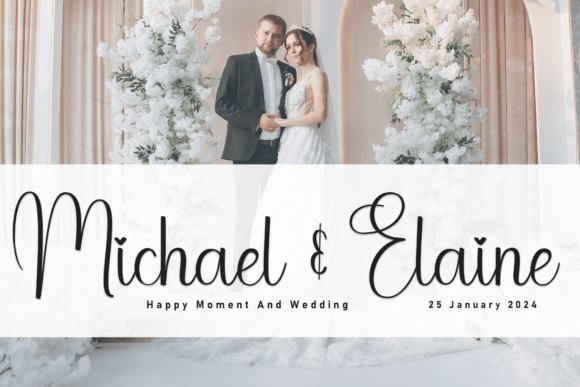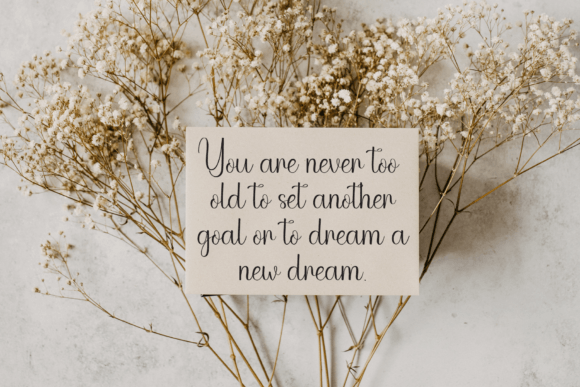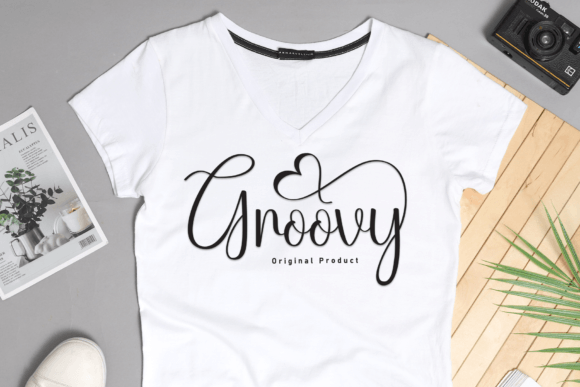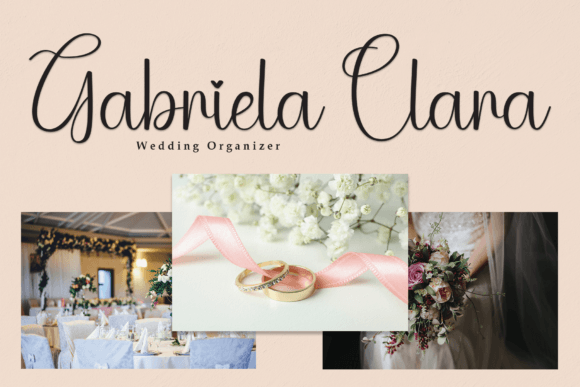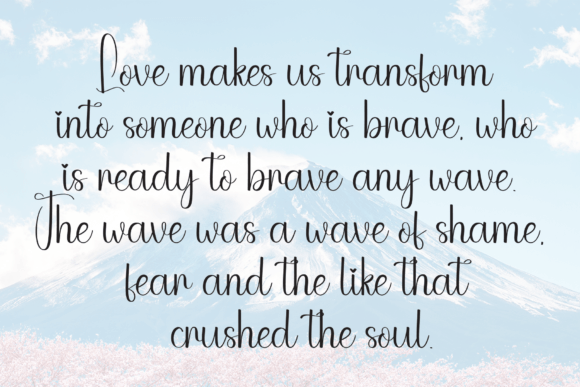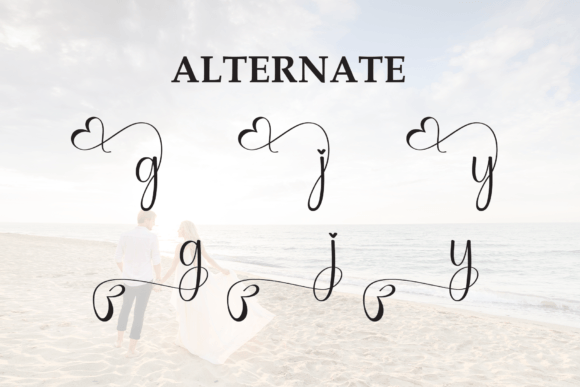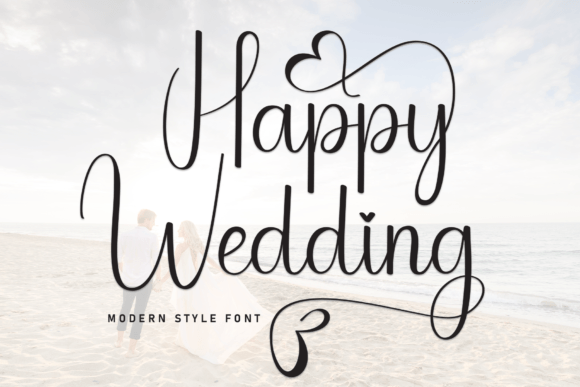
Introducing Happy Wedding Font: The Perfect Choice for Joyful Designs
Are you searching for a font that embodies the joy and happiness of a wedding? Look no further than Happy Wedding Font, a sweet and friendly handwritten display font that’s perfect for adding a fun touch to your designs. In this article, we’ll explore the features and benefits of Happy Wedding Font, and why it’s an ideal choice for designers and crafters looking to create beautiful wedding invitations, cards, and more.
What is Happy Wedding Font?
Happy Wedding Font is a delightful handwritten display font that’s designed to bring a smile to your face. Its sweet and friendly appearance makes it perfect for writing wedding invitations, cards, or any other design that might need a fun touch. Whether you’re a designer, crafter, or DIY enthusiast, Happy Wedding Font is sure to become your go-to choice for creating joyful and celebratory designs.
Key Features of Happy Wedding Font
• Cute and Fun: Happy Wedding Font is a playful and whimsical font that’s sure to add a touch of fun to your designs.
• Handwritten Display Font: With its handwritten appearance, Happy Wedding Font gives your designs a personal and intimate feel.
• Ideal for Wedding Designs: As its name suggests, Happy Wedding Font is specifically designed for wedding-related designs, including invitations, cards, and more.
• Easy to Read: Despite its playful appearance, Happy Wedding Font is easy to read, making it perfect for use in a variety of designs.
Benefits of Using Happy Wedding Font
So why choose Happy Wedding Font for your designs? Here are just a few benefits of using this delightful font:
• Adds a Personal Touch: With its handwritten appearance, Happy Wedding Font adds a personal touch to your designs that’s sure to make them stand out.
• Sets the Tone for the Celebration: Happy Wedding Font’s playful and joyful appearance sets the tone for a celebratory and happy occasion.
• Versatile: While Happy Wedding Font is specifically designed for wedding-related designs, it’s also versatile enough to be used in a variety of other contexts, such as birthday parties, baby showers, and more.
How to Use Happy Wedding Font
Using Happy Wedding Font in your designs is easy. Here are a few tips to get you started:
• Pair it with Other Fonts: Happy Wedding Font pairs well with a variety of other fonts, including serif and sans-serif fonts.
• Use it for Headings and Titles: Happy Wedding Font is perfect for use in headings and titles, where its playful appearance can really shine.
• Experiment with Different Colors: Happy Wedding Font looks great in a variety of colors, so don’t be afraid to experiment and find the perfect hue for your design.
• Play with Different Sizes: Happy Wedding Font can be used in a range of sizes, from small and delicate to large and bold.
• Combine it with Other Elements: Happy Wedding Font pairs well with a variety of other design elements, including images, graphics, and more.
In conclusion, Happy Wedding Font is a sweet and friendly handwritten display font that’s perfect for adding a fun touch to your designs. With its cute and playful appearance, Happy Wedding Font is ideal for writing wedding invitations, cards, or any other design that might need a joyful and celebratory feel. Whether you’re a designer, crafter, or DIY enthusiast, Happy Wedding Font is sure to become your go-to choice for creating beautiful and memorable designs.